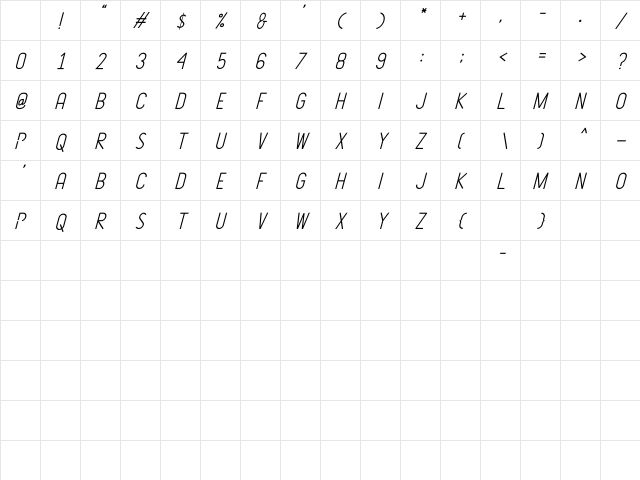
Queen Signature Duo Italic is a composed and adaptable typeface that performs quietly and consistently across a wide range of design contexts. The slanted form adds forward momentum and visual energy.
Pro Tip: Use Queen Signature Duo Italic for emphasis, pull quotes, and subheadings where its slanted energy can add rhythm to the layout.